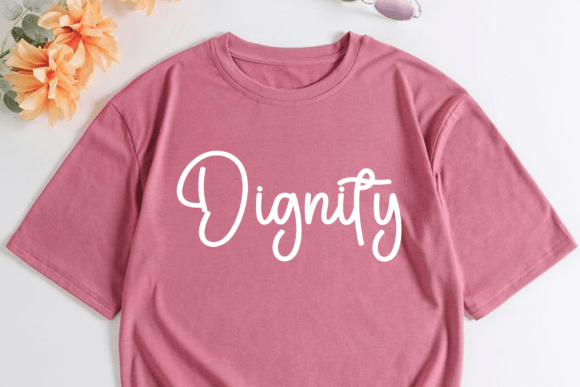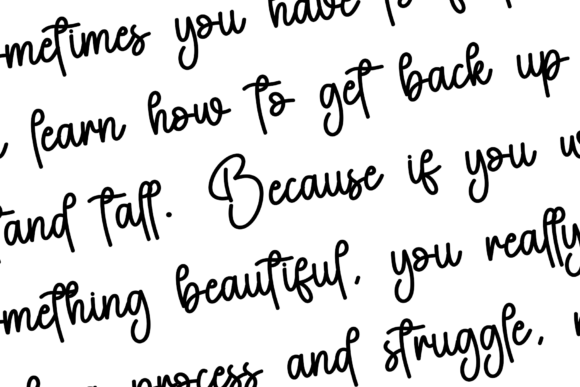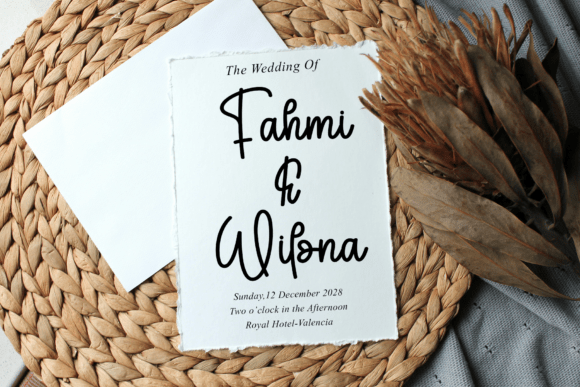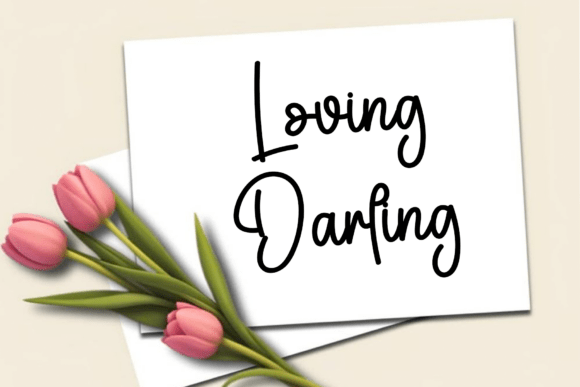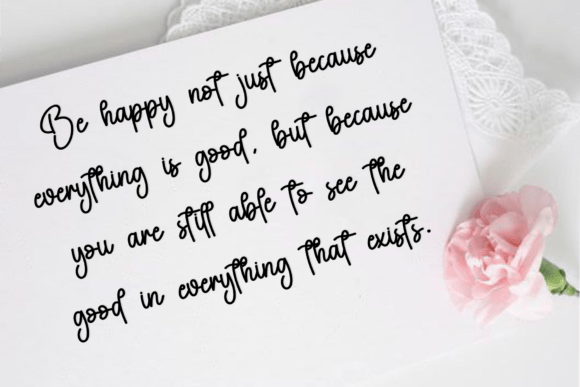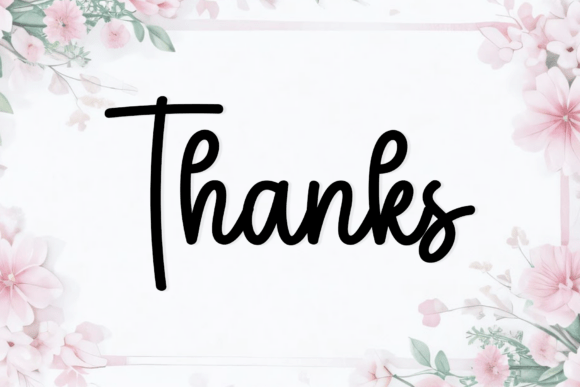
Introduction to Drighter Font
Drighter is a “new style” handwritten script font that defines modern elegance through its fluid, signature-like motion.
It features a delicate balance of tall ascenders and graceful, sweeping loops that create a rhythmic and sophisticated visual flow Perfect for luxury branding, signature logos, wedding stationery, and high-end editorial content, it brings an unmistakable touch of class to every word.
Key Features of Drighter Font